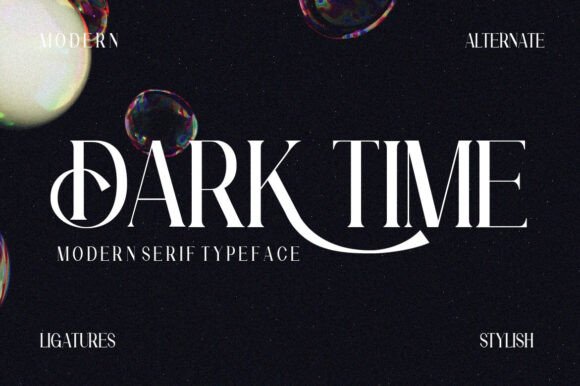
Discover the Elegance of Dark Time Font: Elevate Your Designs with Sophistication
In the realm of typography, the right font can make all the difference in conveying the intended message and evoking the desired emotional response. For designers seeking to infuse their creations with a blend of power, elegance, and sophistication, the Dark Time font emerges as a compelling choice. This contemporary serif typeface is meticulously crafted to bring a balanced blend of robust character and delicate artistry to your designs, allowing you to leave a lasting, intriguing impression.
The Essence of Dark Time Font
Dark Time is not just another addition to the vast universe of typefaces; it is a statement of style and refinement. Its design is a thoughtful amalgamation of modernity and classic allure, ensuring that your designs stand out in a crowd without losing touch with timeless elegance. Each stroke, every curve, and the overall aesthetic of the Dark Time font is a testament to its versatility and the creative possibilities it offers.
Key Features of Dark Time Font
- Contemporary Serif Typeface: Dark Time boasts a modern approach to serif fonts, making it perfect for designs that demand a current, updated look.
- Balanced Elegance and Strength: The font strikes an ideal balance between robustness and delicacy, allowing for a wide range of applications from luxury branding to editorial designs.
- Sophisticated Aesthetic: Its elegant design ensures that your projects exude sophistication, making it ideal for high-end designs.
- Versatility: Dark Time font can be used across various mediums, from digital platforms to print, adapting seamlessly to different contexts.
Applications of Dark Time Font
The versatility of the Dark Time font makes it suitable for a myriad of design applications. Here are some areas where Dark Time can make a significant impact:
- Branding and Logo Design: Use Dark Time to create a memorable brand identity that communicates luxury, reliability, and sophistication.
- Editorial and Magazine Design: Elevate your editorial content with a font that commands attention while maintaining readability and elegance.
- Web Design: Enhance user experience with a typeface that is both modern and timeless, ensuring your website stands out.
- Advertising and Marketing Materials: Make your campaigns more compelling with a font that exudes confidence and class.
Why Choose Dark Time Font?
In a sea of typefaces, Dark Time font distinguishes itself through its unique blend of characteristics. Here are reasons why designers and brands are gravitating towards Dark Time:
- Unique Aesthetic: Dark Time offers a distinctive look that can set your designs apart from the generic and the ordinary.
- Emotional Connection: The fontโs elegant and robust features help in creating an emotional connection with the audience, making your message more impactful.
- Legibility: Despite its elegance, Dark Time maintains high legibility, ensuring your message is conveyed clearly and effectively.
- Support for Multiple Languages: Dark Time comes with support for multiple languages, making it a versatile choice for global brands.
Tips for Using Dark Time Font Effectively
To maximize the impact of Dark Time font in your designs, consider the following tips:
- Pair it Wisely: Combine Dark Time with complementary fonts to create visual hierarchy and enhance readability.
- Adjust Weight and Size: Experiment with different weights and sizes to add depth and emphasis to your design.
- Consider Context: Ensure that the use of Dark Time aligns with the tone and message of your design.
- Consistency is Key: Maintain consistency in font usage across your design to create a cohesive look.
Dark Time font is a powerful tool in the arsenal of designers aiming to create impactful, elegant, and sophisticated works. Its unique blend of contemporary flair and classic sophistication makes it an excellent choice for a wide range of design projects. By incorporating Dark Time into your typography, youโre not just choosing a font; youโre making a statement of style and refinement. Elevate your designs with Dark Time, and let every stroke be a signature of your creativity.
FAQs About Dark Time Font
- What type of projects is Dark Time font best suited for?
- Dark Time font is versatile and can be used for a variety of projects including branding, editorial design, web design, and advertising.
- Is Dark Time font suitable for body text?
- Yes, due to its legibility and elegant design, Dark Time can be effectively used for body text in addition to headings.
- How can I get the most out of using Dark Time font?
- Experiment with different weights, sizes, and pairings with other fonts to fully leverage the potential of Dark Time in your designs.